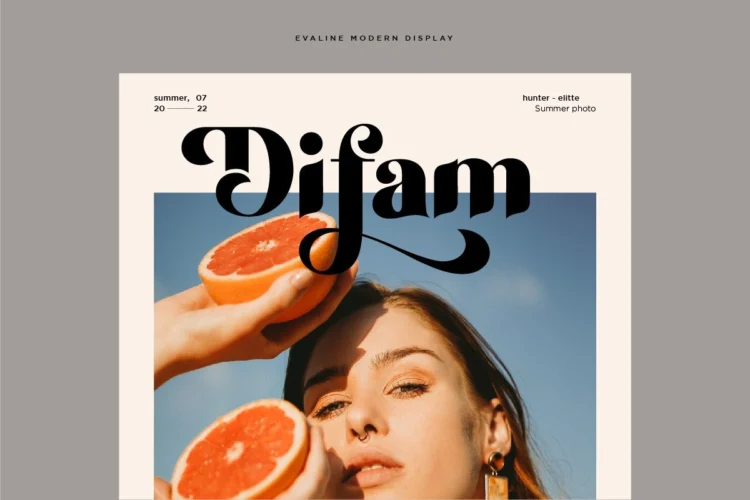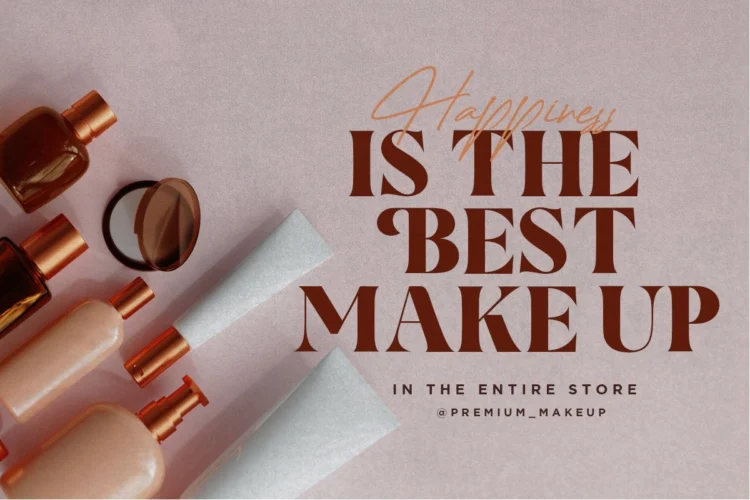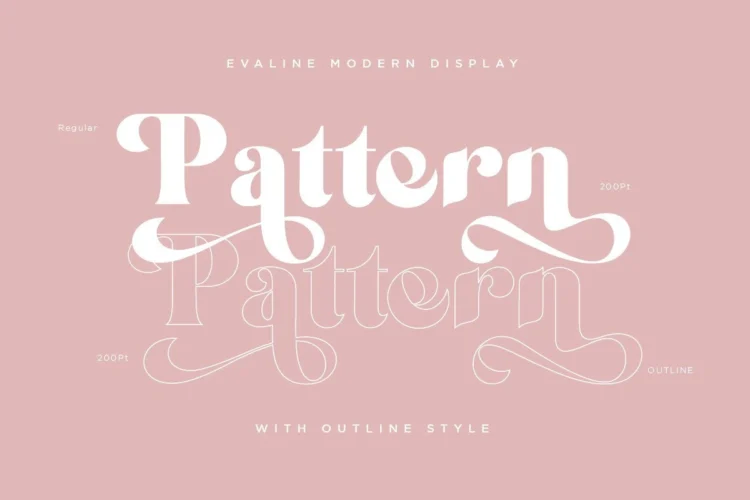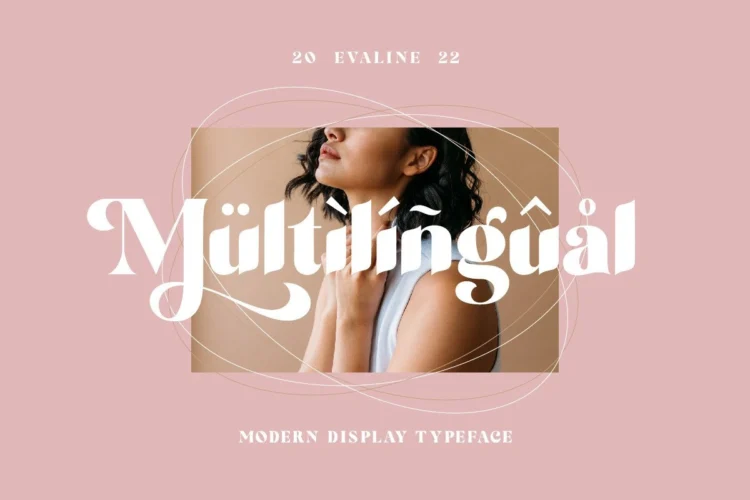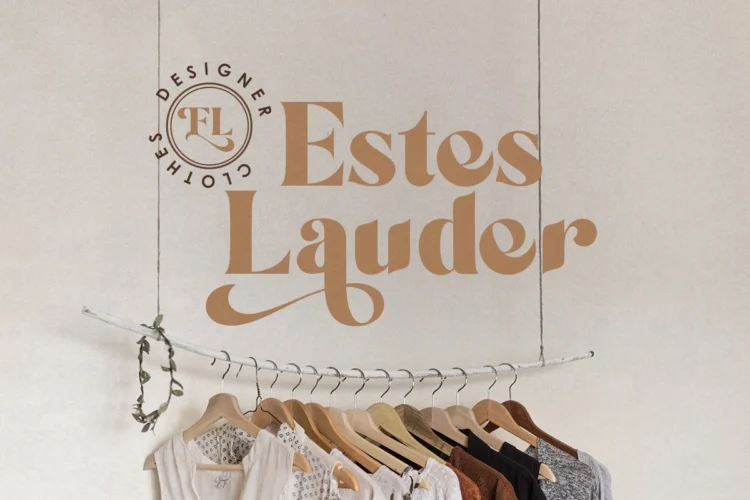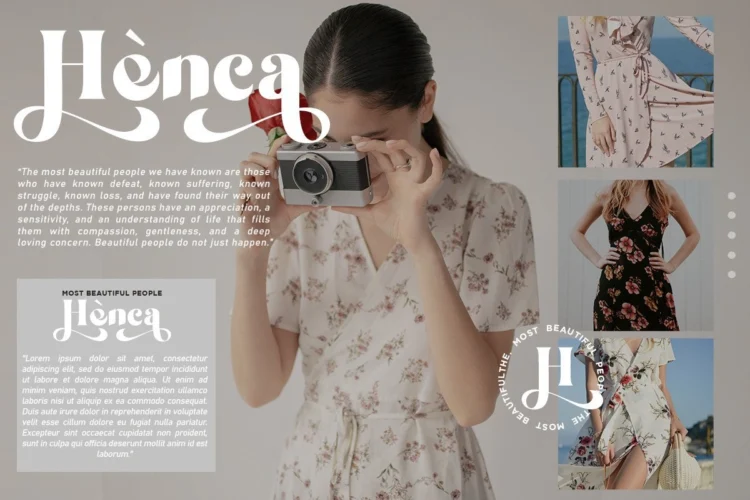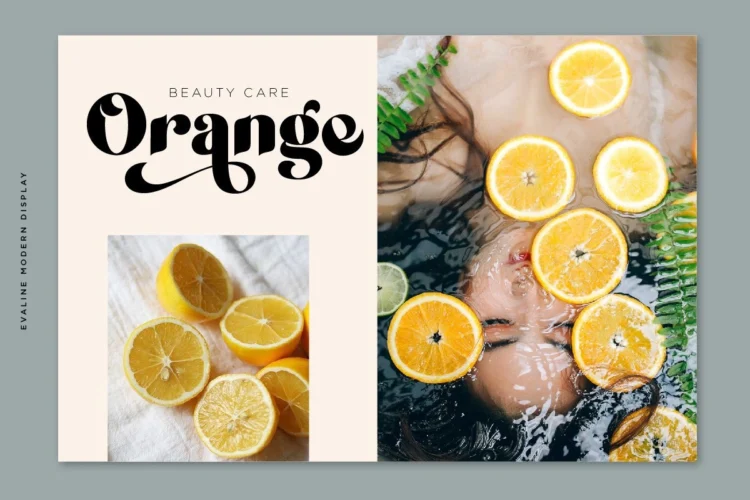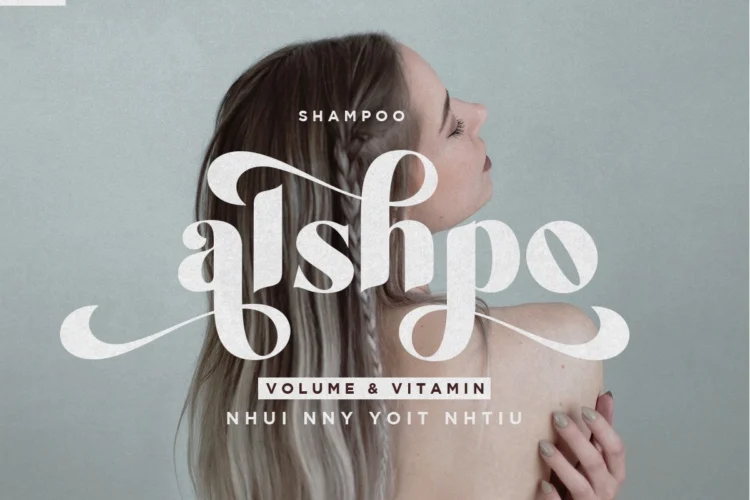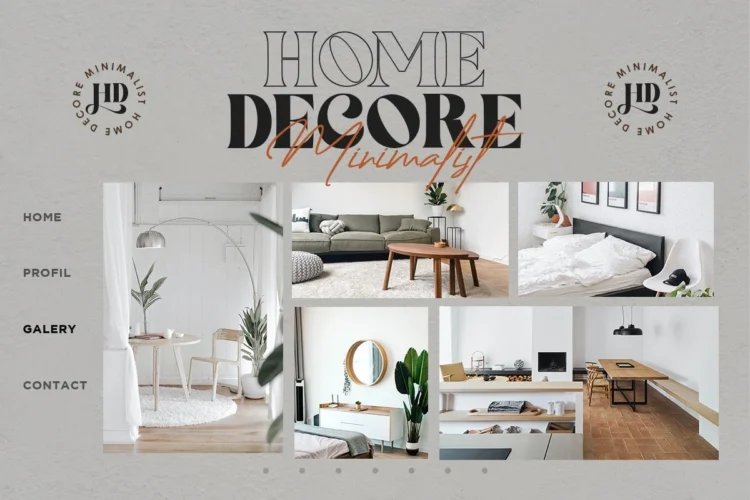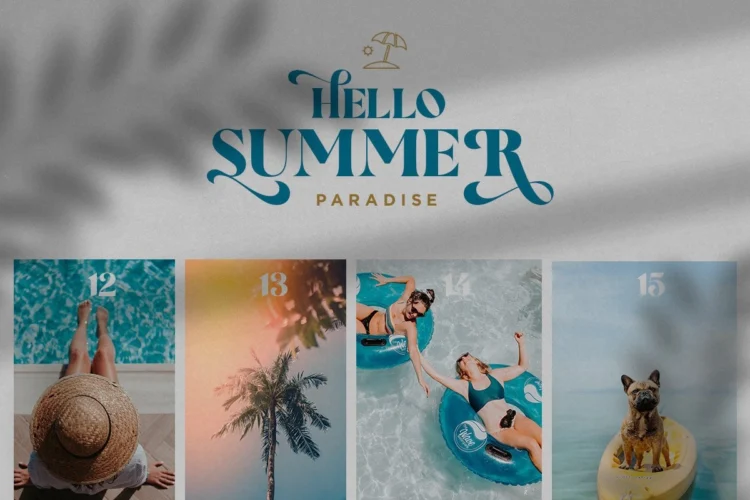
Evaline – Display Font
Evaline – Modern Display Typeface
Evaline Display is modern display typeface with several alternates lowercase and Uppercase. And have three style : Regular, Italic, and Outline to create beauty design and wonderful. which you can play with the style you want
A very versatile font that works in both large and small sizes. This font is suitable for a wide variety of projects such as: headlines, logos, labels, branding projects, magazines, homeware designs, product packaging, mugs, quotes, posters, and more. It can also be more expressive and fun, thanks to the many alternatives and binders that combine harmoniously in this font and make it more interesting and versatile.
- Multilingual